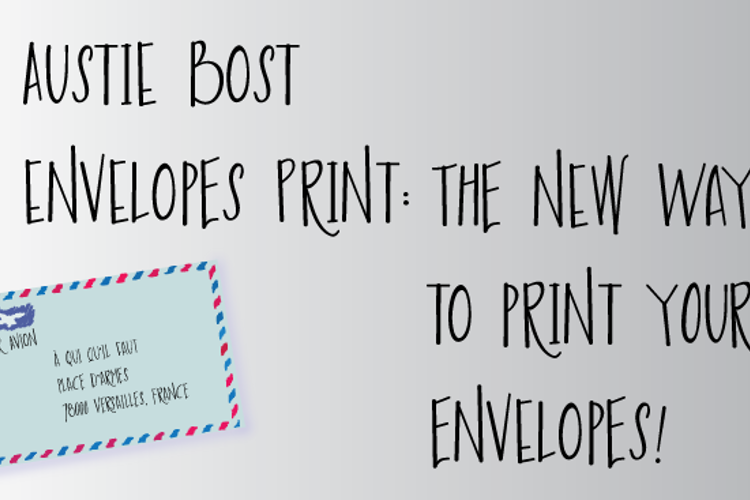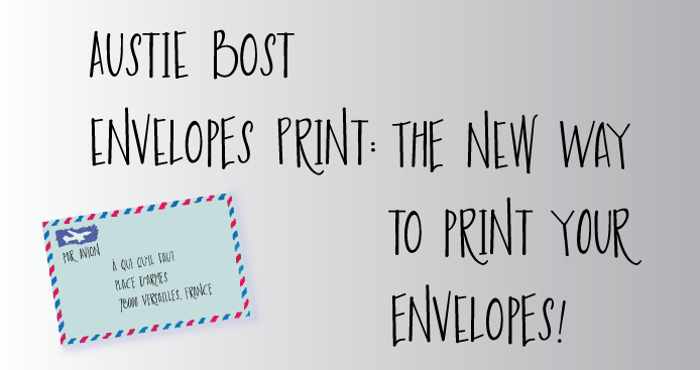
Austie Bost Envelopes Print Font
About Austie Bost Envelopes Print Font
Austie Bost Envelopes Print is an all-caps font that takes on the appearance of super cute handdrawn envelope art! It's perfect for any project, whether on an envelope or otherwise. :)